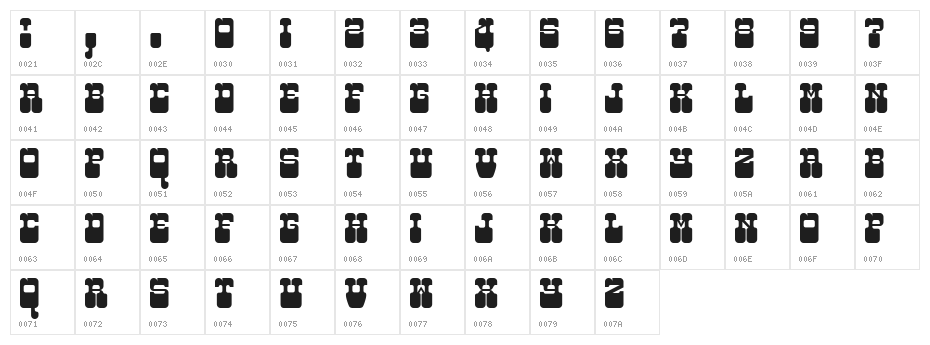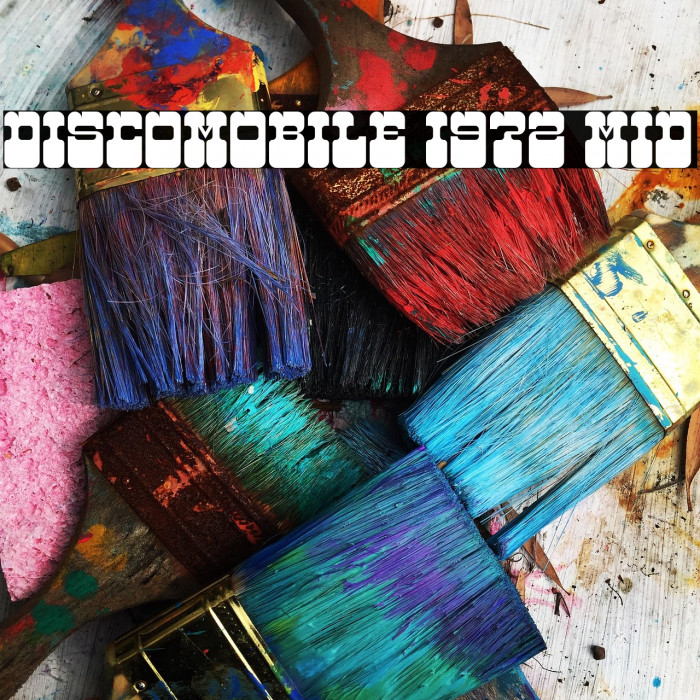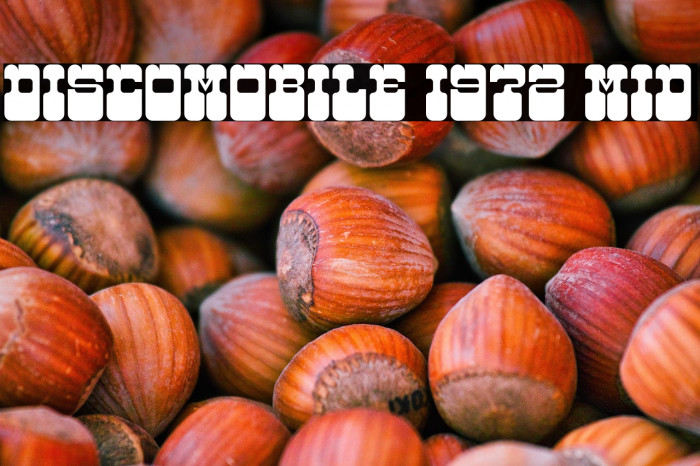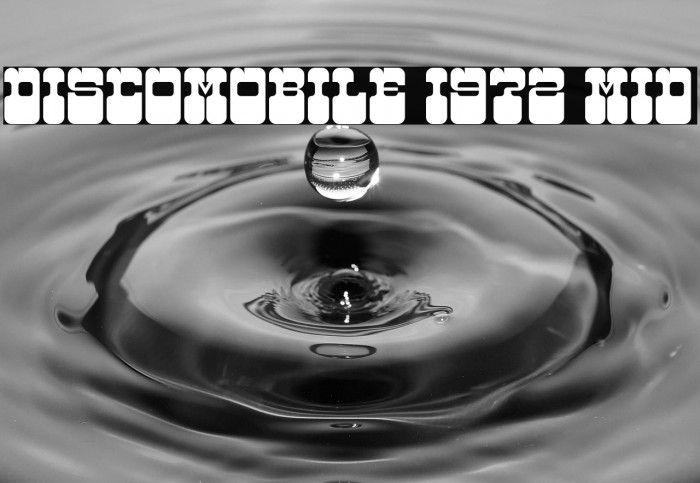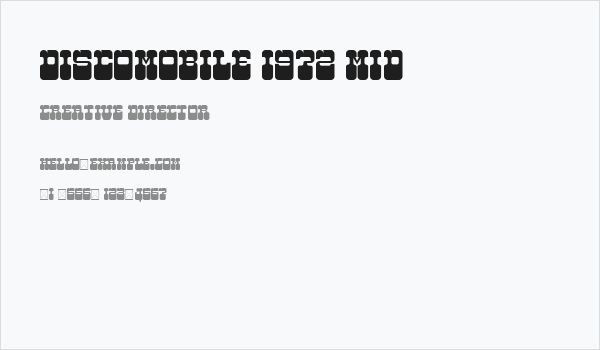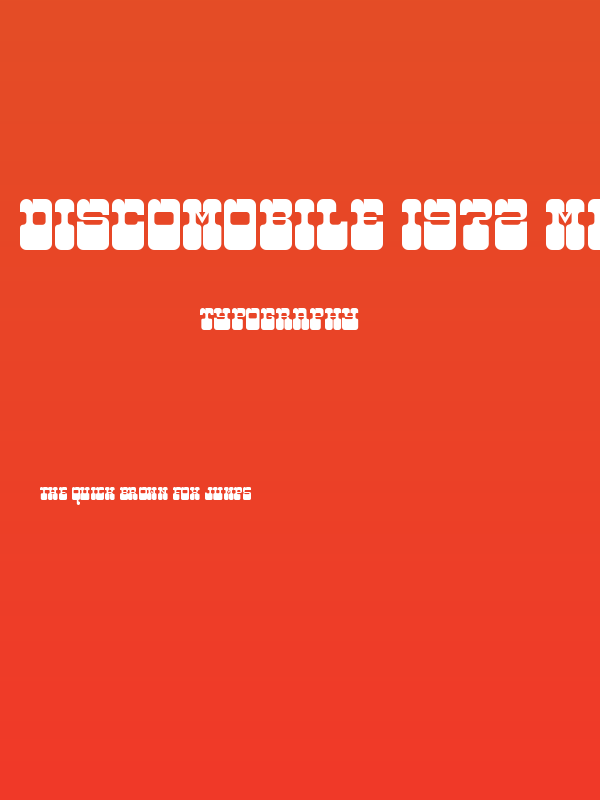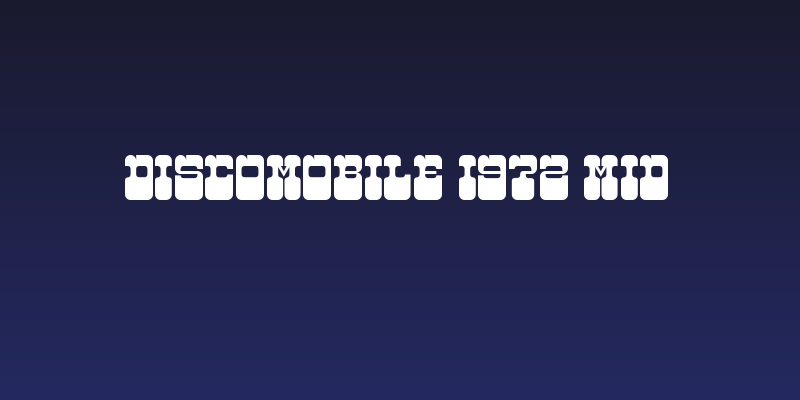
Discomobile 1972 Mid Font
Discomobile 1972 Mid Description
This font features a bold, geometric design with a distinctly retro aesthetic reminiscent of the 1970s. The characters are blocky and have a uniform thickness, creating a strong visual impact. The rounded edges soften the overall appearance, adding a playful touch to the otherwise robust structure. The font's unique style is characterized by its thick, consistent strokes and the absence of any serifs, giving it a modern yet nostalgic feel. The spacing between characters is tight, enhancing the compact and cohesive look of the text. This font is ideal for projects that aim to capture a vintage or retro vibe, making it suitable for posters, album covers, or any design that seeks to evoke a sense of nostalgia.
| Proposed Projects | Ideal for retro-themed posters, album covers, vintage branding, and nostalgic design projects. |